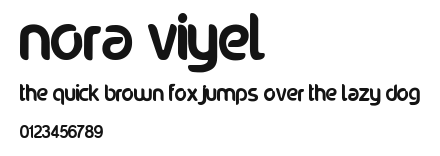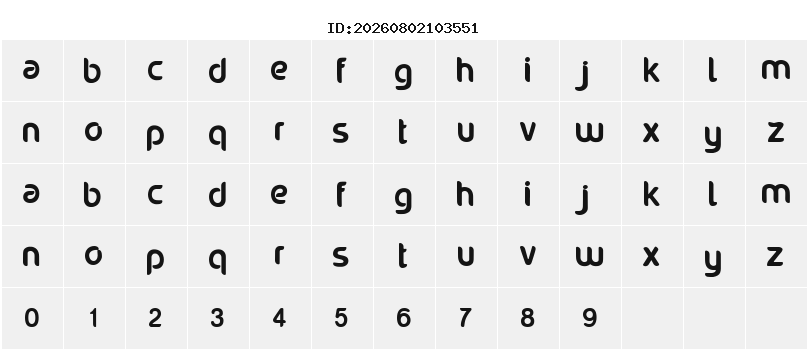
• Font Name: nora viyel
• Manufacturer: PYRS Fontlab Ltd. / Made with FontLab
• Description: nora viyel Regular is a font by PYRS Fontlab Ltd. / Made with FontLab, designed in 2016.
About nora viyel.ttf
nora viyel.ttf is a modern, elegant sans-serif font designed for ultimate readability and visual harmony. Perfect for branding, headlines, web design, and print materials.